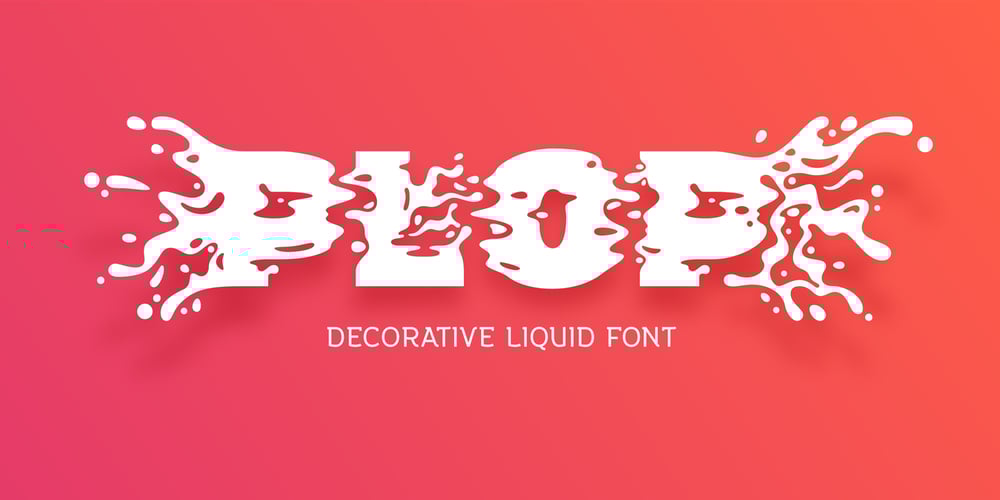
Plop Font Family was designed by Gleb Guralnyk and published by Gleb Guralnyk. Plop contains 1 styles and family package options. Presenting a decorative liquid font Plop. It’s a splashing funny typeface perfect for authentique lettering composition. To use a bigger splash letter just type a capital letter. Same way the last letter in word will be automatically replaced to correct glyph using OpenType features. Both sides splashes are available for all letters including multilingual characters.Thank you and have a nice day!